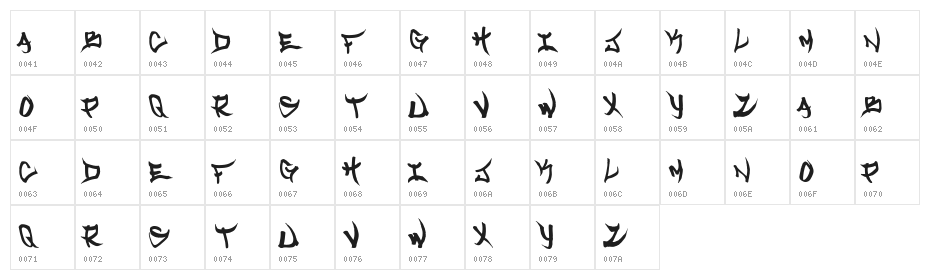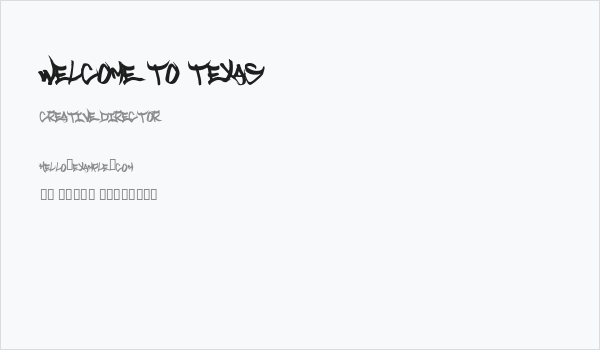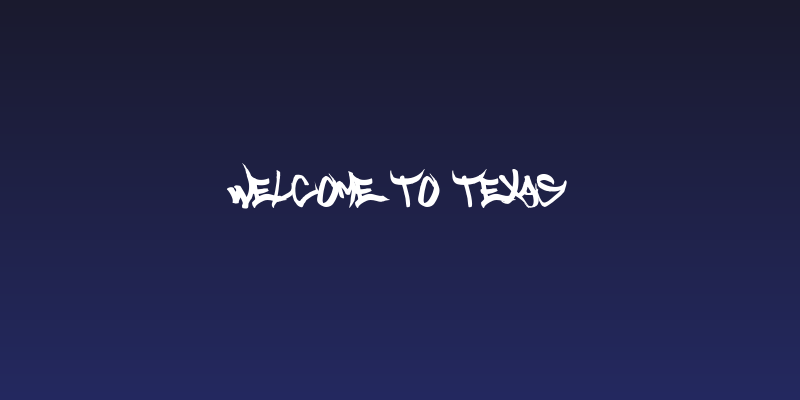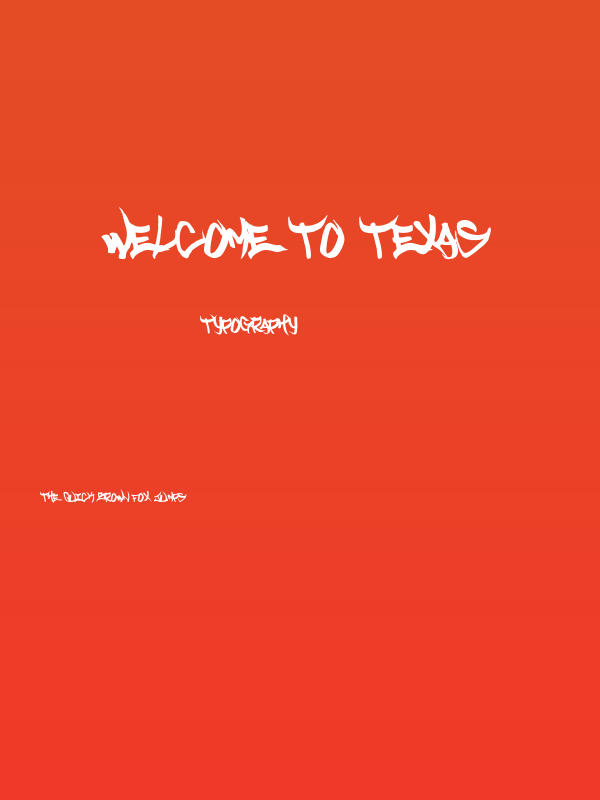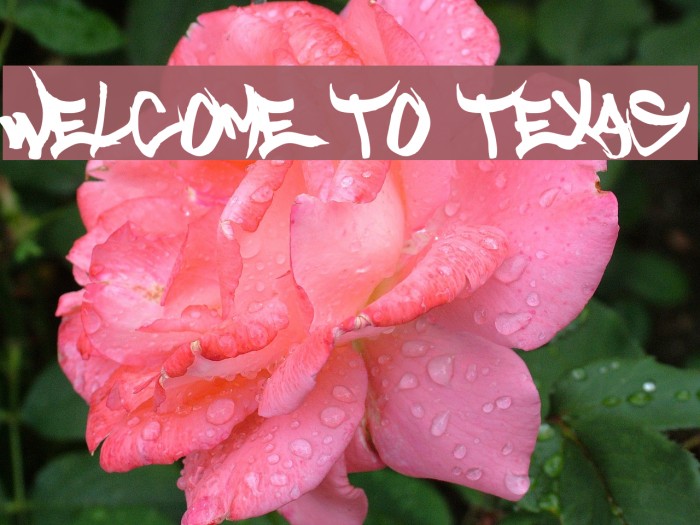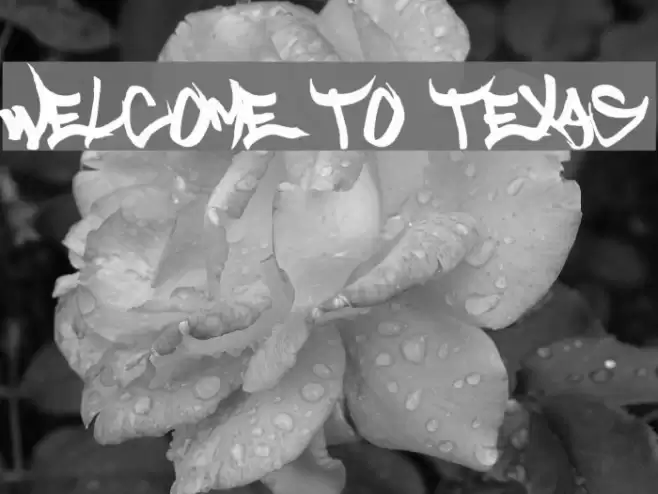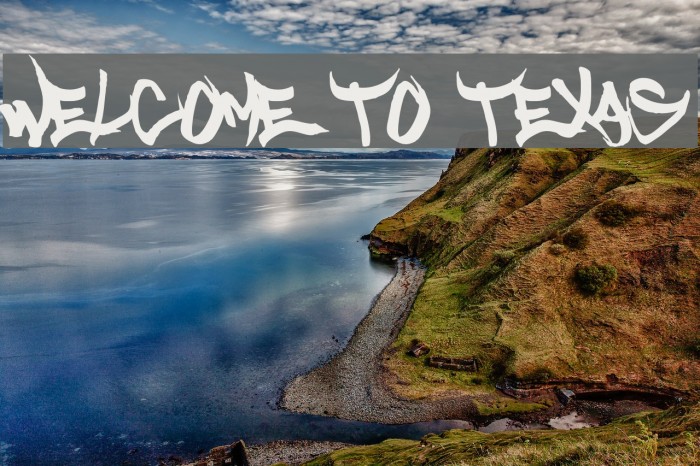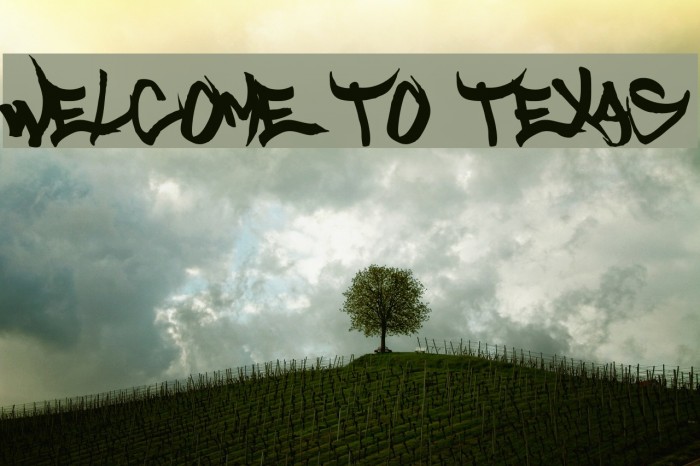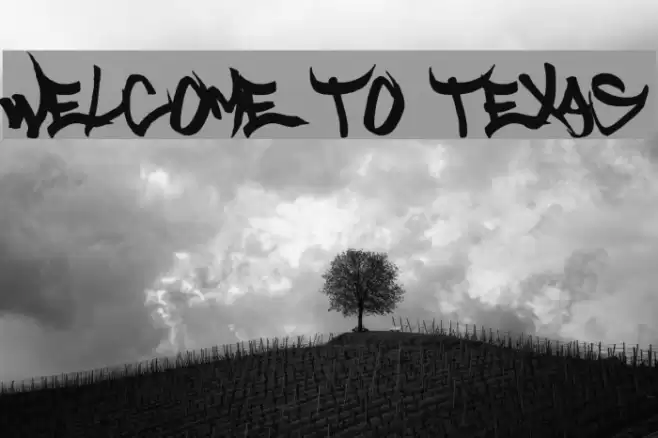
Welcome to Texas Font
✎ Graffiti
Welcome to Texas Description
This font features a bold, graffiti-inspired style with sharp, angular lines and dynamic curves. The uppercase letters are highly stylized, with exaggerated strokes that give a sense of movement and energy. The design is reminiscent of street art, with a rebellious and edgy feel. The characters are tightly spaced, enhancing the compact and impactful appearance. This font is ideal for projects that require a strong visual statement, such as urban-themed designs or music album covers. The lack of lowercase letters and numbers emphasizes its decorative and display nature, focusing on artistic expression rather than readability.
| Categories | Graffiti |
| Width | Condensed |
| Overall Style | Modern, Urban |
| Use Case | Logos, Headlines, Posters |
| Proposed Projects | Ideal for street art designs, music album covers, posters, and urban-themed branding. |